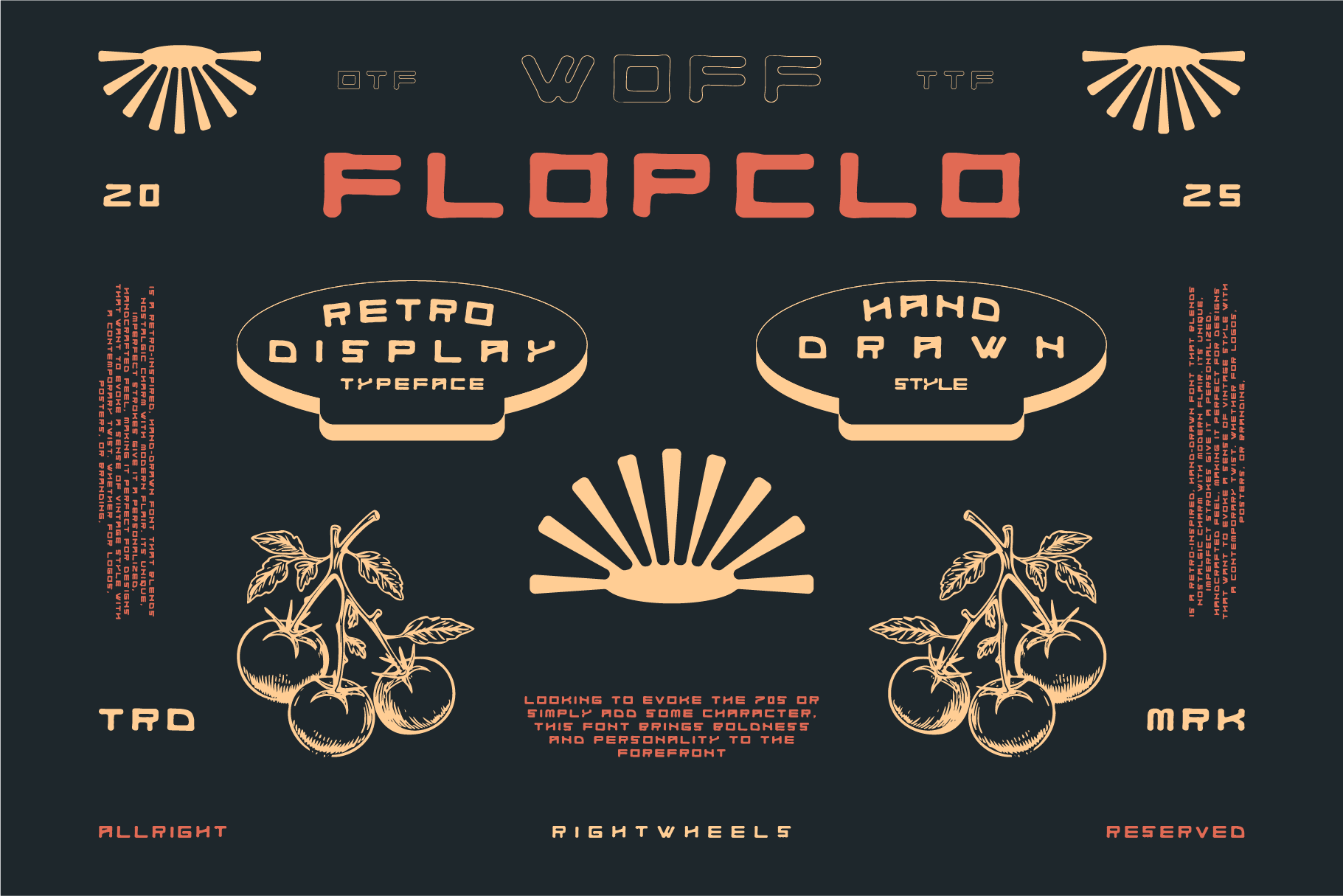
FLOPCLO - Retro Display Font
Flopclo is a retro-inspired, hand-drawn font that blends nostalgic charm with modern flair. Its unique, imperfect strokes give it a personalized, handcrafted feel, making it perfect for designs that want to evoke a sense of vintage style with a contemporary twist. Whether for logos, posters, or branding, FlopClo adds a playful yet bold character to any project.